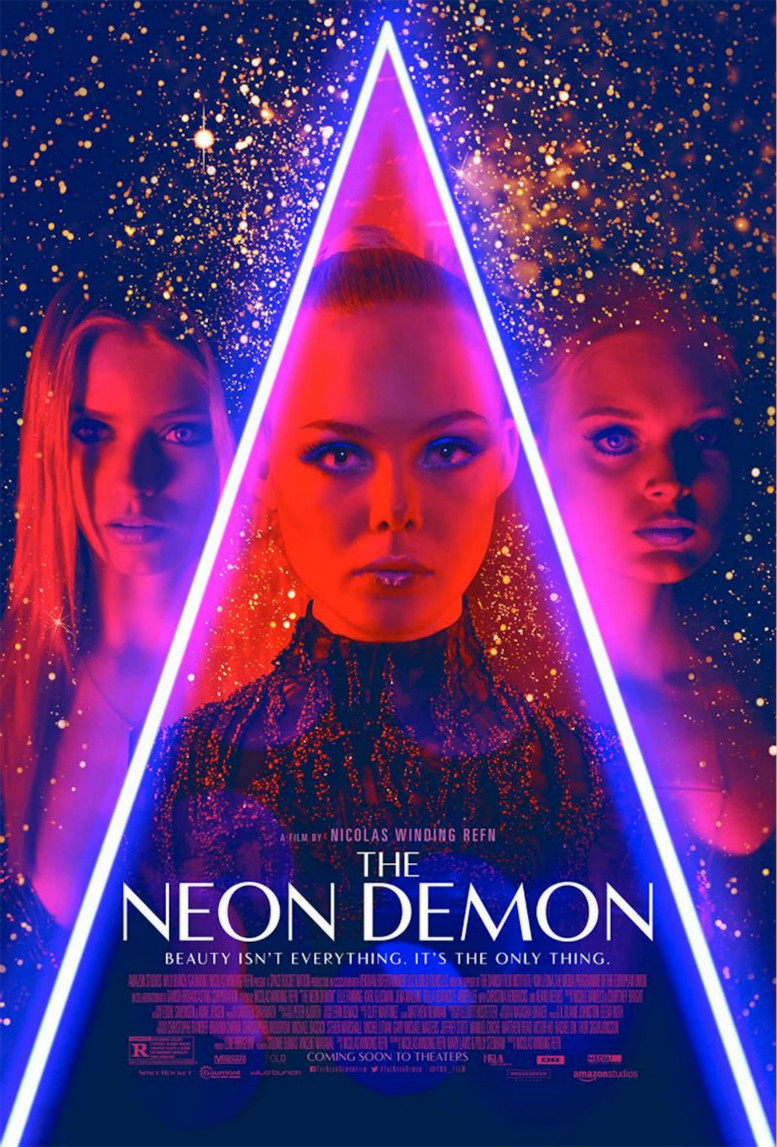
The Neon Demon Font
Fonts in UseThe Neon Demon is a 2016 psychological horror film directed by Nicolas Winding Refn, following an aspiring model who moves to Los Angeles and quickly finds herself surrounded by a dangerous and obsessive culture of beauty and vanity.
The poster's film title features the Vanitas ExtraBold font, designed by Michael Jarboe. This font is inspired by classic didone styles but has a cleaner and more minimalist appearance.